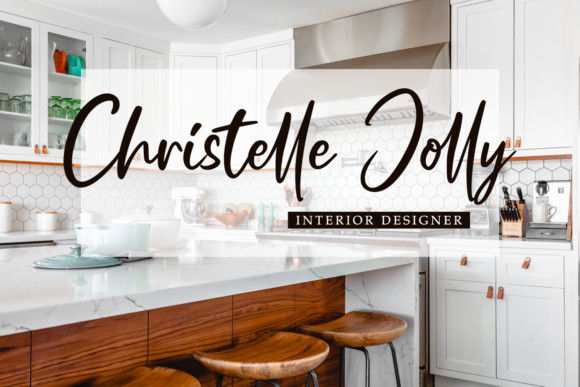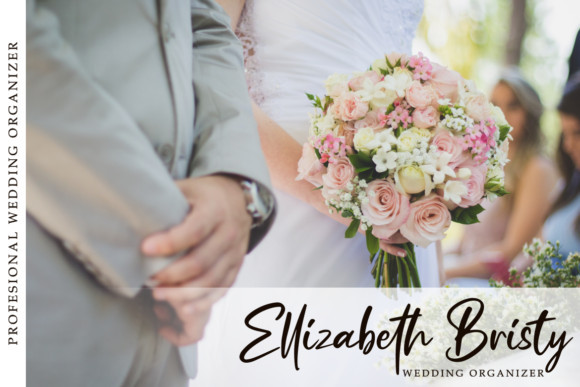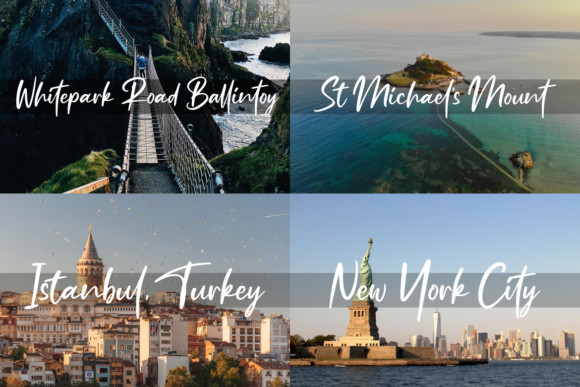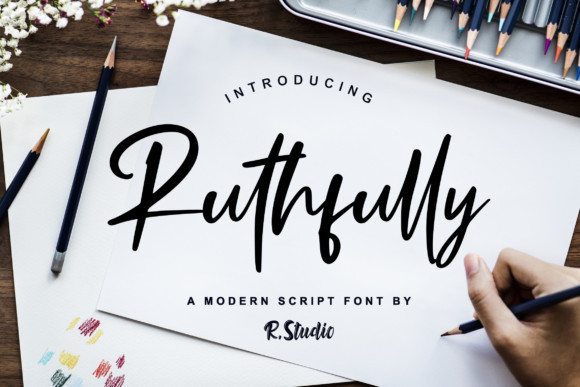
Ruthfully Handwritten Font
Ruthfully Handwritten – Free Demo
This is signature handwritten. It’s a beautiful script font with a fresh and contemporary twist. Get inspired by its unique charm! Introducing Ruthfully Font. It’s a cool and stunning handwritten font with a modern vibe. Get inspired by its timeless elegance. It’s will perfect for many different project ex: quotes, logo, blog header, poster, banding, fashion, apparel, letter, invitation, stationery, etc…